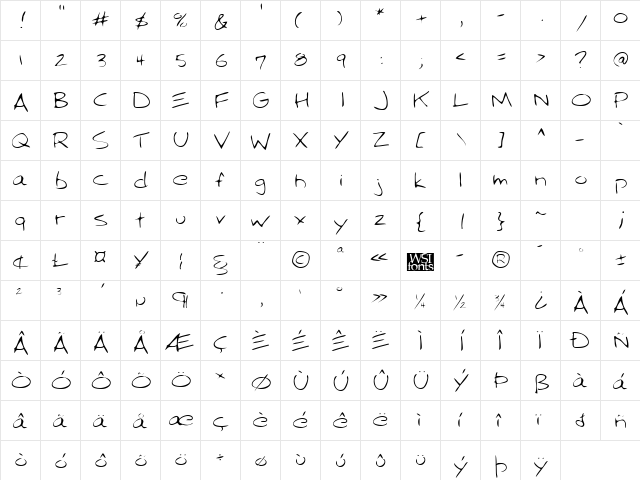
AngelasHand Regular
Design Context for AngelasHand Typeface
AngelasHand flows with the natural rhythm of handwritten lettering, making it ideal for designs that call for warmth and personal expression.
Font Pairing: Combine AngelasHand with a simple geometric sans for maximum contrast — the tension between flowing curves and clean structure is a classic typographic pairing.
Pro Tip: Pair AngelasHand with a clean sans-serif for supporting text. The contrast between fluid script and geometric structure creates an elegant typographic hierarchy.